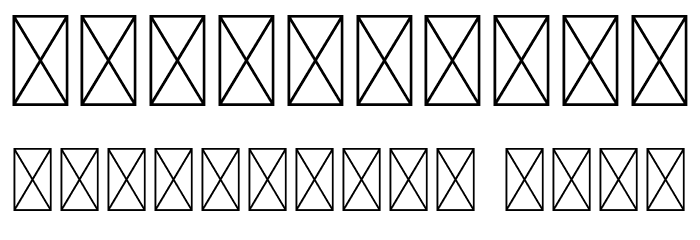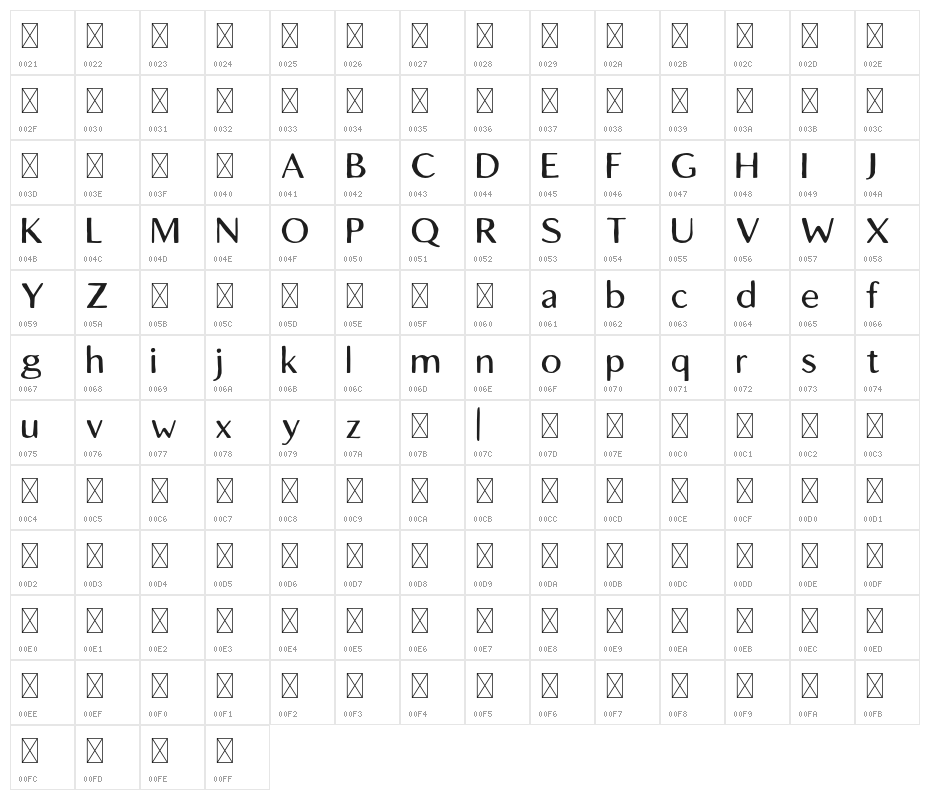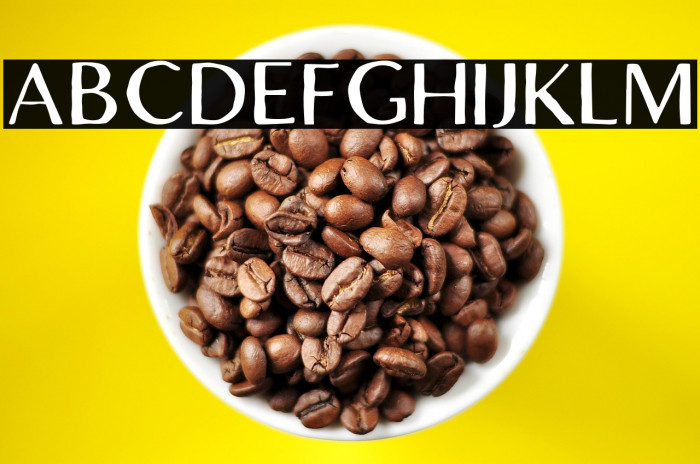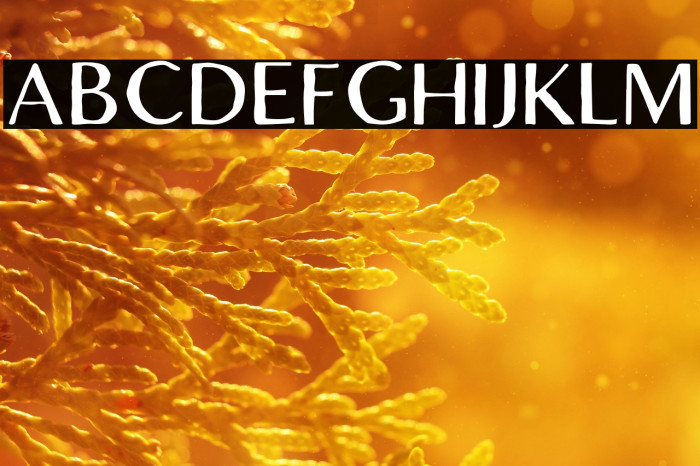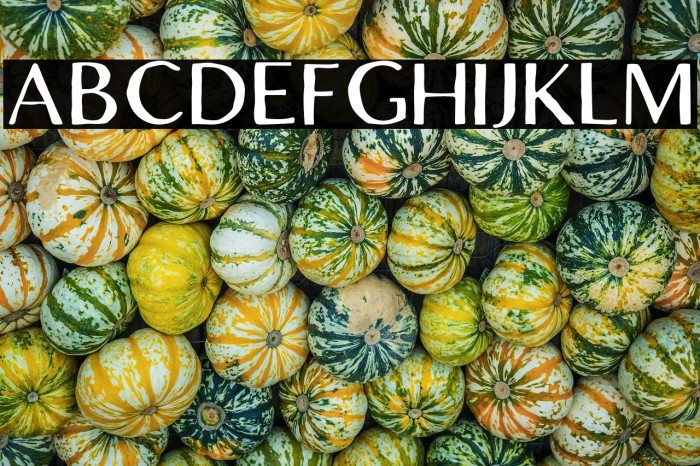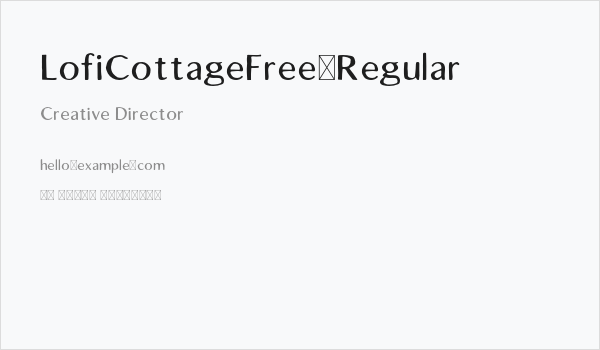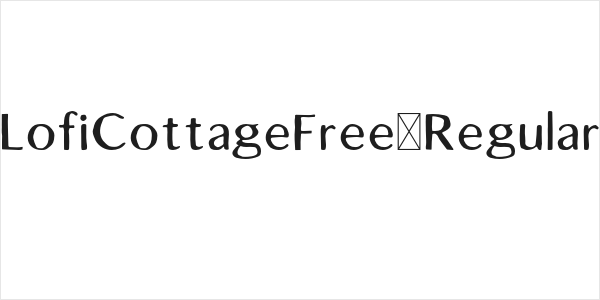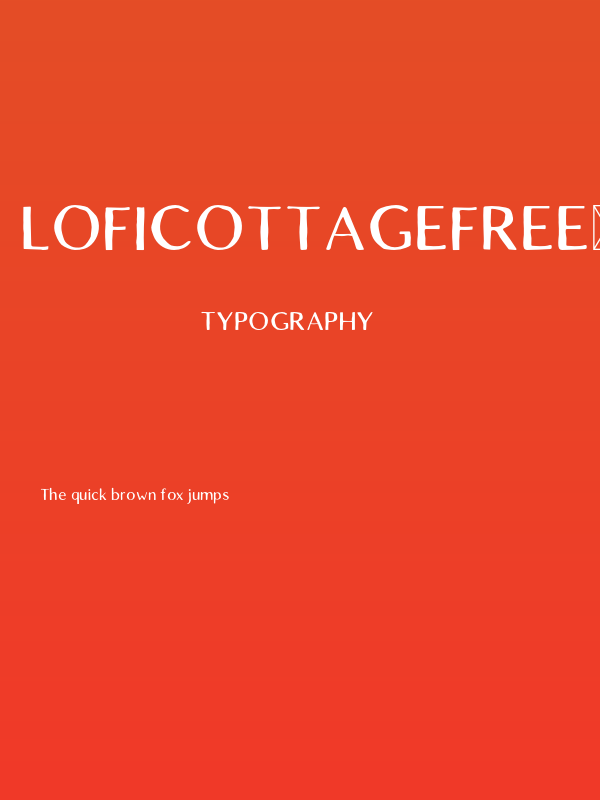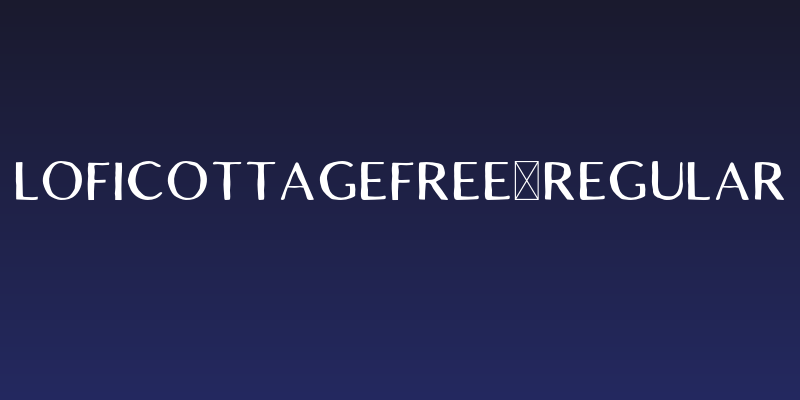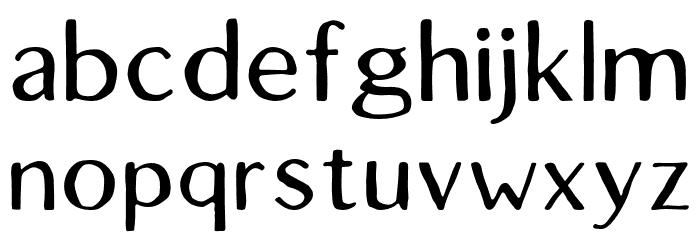
LofiCottageFree-Regular Font
LofiCottageFree-Regular Description
This font exudes a charming, handcrafted appeal with its slightly irregular strokes and organic flow. The characters have a whimsical quality, reminiscent of hand-drawn letters, which adds a personal touch to any design. The uppercase letters are bold and assertive, while the lowercase letters maintain a friendly and approachable demeanor. The overall appearance is casual yet artistic, making it suitable for projects that require a touch of creativity and warmth. The font's unique style is characterized by its uneven lines and playful curves, which give it a distinctive personality.
| Proposed Projects | Ideal for greeting cards, invitations, children's books, and creative branding. |